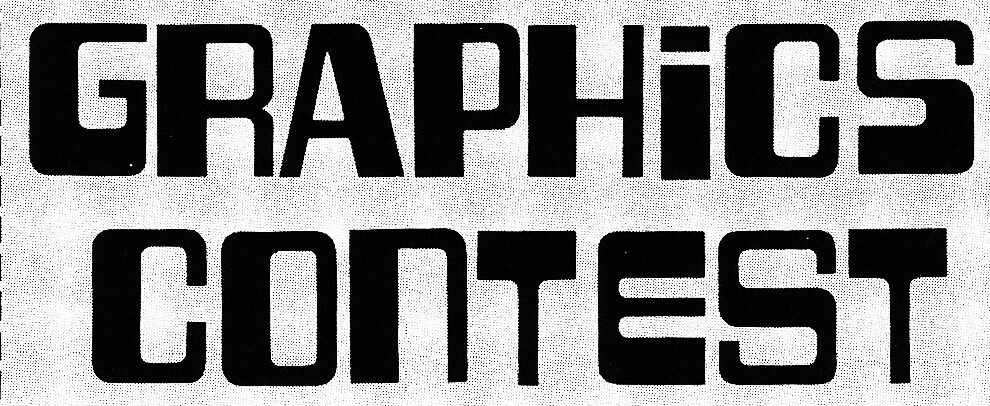
Old school typeface from seventies and eighties, looking to see if it ever made it to digital or what it was once called.
I found your font. It’s DXS Tuxedo Font.
The original typeface goes back to the seventies perhaps even earlier, it was used on a computer called the Altair and was also used by a computer reseller in California, would be nice to find the originator of this font, however from my own searching online, nothing has come up.
I have another typeface you to identify, you’re better at this than the search engine.
It was printed
in 1974.
Start with Akzidenz Grotesk. It’s not a perfect match, but it’s a place to start. And it’s not Helvetica, Univers, Nimbus, or Venus, all of which are of the correct era.
What I did was use an Aka font that came close, and then vectored the letters and adjusted them manually, fairly simple procedure, although it would be nice that this old printed material actually had a modern day font equivalent, it seems I always run into something that is oddball.
I’ve been looking for a font that was used by MITS for their Altair Computer, when Tuxedo was suggested it was as close a match as there was, then it led me to the actual producer of that typeface which was a company called Formatt, now I’m making my own version of that typeface which this company called PROGRAM, without high quality scans of the original characters which were rub downs, even with Fontlab, accuracy will be less than perfect, however far better than Tuxedo which is missing alot of the original characters.